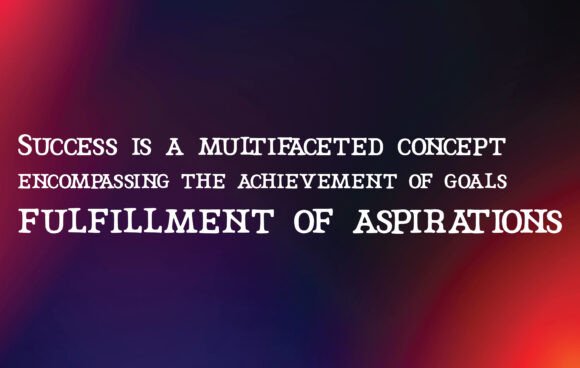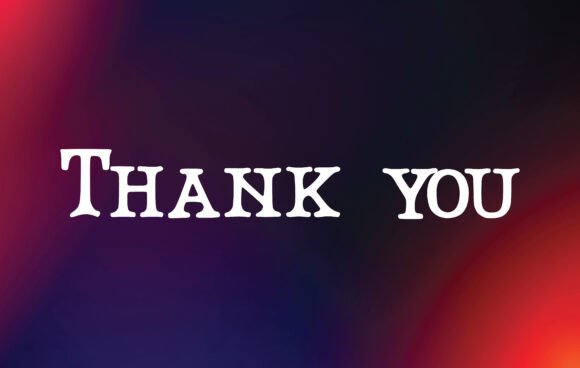
Barker Font: Elevate Your Creative Ideas to New Heights
Are you a designer, craftsperson, or creative looking for a font that can take your projects to the next level? Look no further than the Barker Font. This lovely and beautiful font is designed to help you unleash your imagination and bring your ideas to life in a visually stunning way. With its unique characteristics and versatility, Barker is the perfect choice for creating eye-catching logos, branding, and quotes that capture attention and leave a lasting impression.
The Beauty of Barker Font
Barker Font is a masterpiece of typographic design, boasting a distinctive and elegant style that sets it apart from other fonts. Its beautiful curves, lines, and shapes work harmoniously to create a visually appealing aesthetic that is both modern and timeless. Whether you’re designing a logo, creating a brand identity, or crafting a quote, Barker Font provides the perfect foundation for your creative expression.
Unleash Your Creativity with Barker Font
What makes Barker Font truly special is its potential to elevate your creative ideas to new heights. With this font, you can:
- Create stunning logos that capture the essence of your brand
- Develop a strong brand identity that resonates with your audience
- Craft inspiring quotes that motivate and engage your readers
- Design eye-catching graphics that leave a lasting impression
Why Choose Barker Font?
So, why should you choose Barker Font for your creative projects? Here are just a few compelling reasons:
- Versatility: Barker Font is incredibly versatile, making it suitable for a wide range of creative applications, from logos and branding to quotes and graphics.
- Elegance: The font’s elegant design ensures that your projects look sophisticated and professional, making it perfect for businesses and individuals who want to make a strong impression.
- Readability: Barker Font is highly readable, even at small sizes, making it ideal for use in a variety of contexts, from digital media to print materials.
- Uniqueness: With its distinctive style, Barker Font helps you stand out from the crowd and establish a unique visual identity for your brand or project.
Tips for Using Barker Font Effectively
To get the most out of Barker Font, here are some tips to keep in mind:
- Experiment with different sizes and colors: Don’t be afraid to try out different sizes and colors to find the perfect combination for your project.
- Pair with complementary fonts: Barker Font pairs well with a range of other fonts, so don’t be afraid to experiment with different combinations to find the perfect match.
- Use it consistently: Consistency is key when it comes to branding, so make sure to use Barker Font consistently across all your marketing materials.
In conclusion, Barker Font is a beautiful and versatile font that has the potential to take your creative ideas to new heights. With its elegant design, readability, and uniqueness, it’s the perfect choice for designers, craftspersons, and creatives looking to create eye-catching logos, branding, and quotes. Whether you’re a seasoned designer or just starting out, Barker Font is sure to become a go-to font in your creative toolkit.